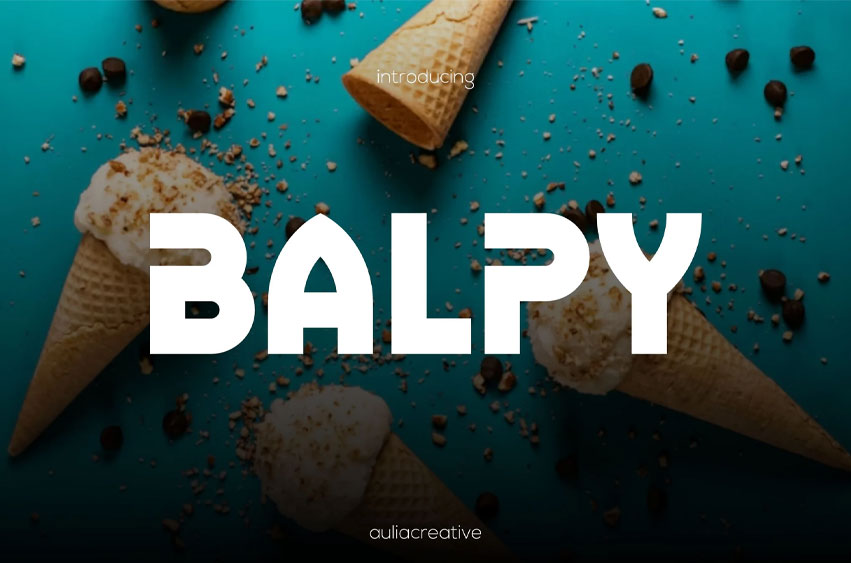
Balpy Font
Balpy Font Bold Sans Serif Display Logo Font is and awesome and authentic display font.
Every letter has a unique and beautiful touch, which will make your design come alive!
• Number & Symbol
• UPPERCASE, lowercase
• Legature
• Alternative